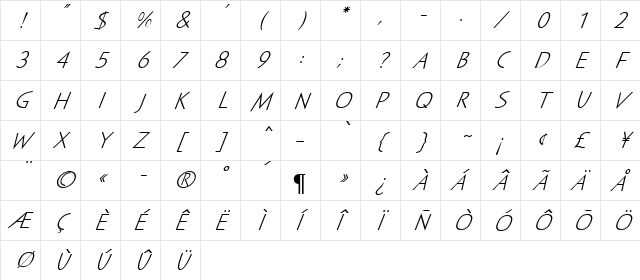
SayerSpiritual MN Italic Font Preview
SayerSpiritual MN Italic
SayerSpiritual MN Italic Font Details
Design Context for SayerSpiritual MN Typeface
SayerSpiritual MN takes a measured approach to typography — its balanced proportions and neutral character make it a reliable workhorse for both digital and print work. Its italic angle brings a sense of urgency and motion to the letterforms.
Pro Tip: Use SayerSpiritual MN for emphasis, pull quotes, and subheadings where its slanted energy can add rhythm to the layout.